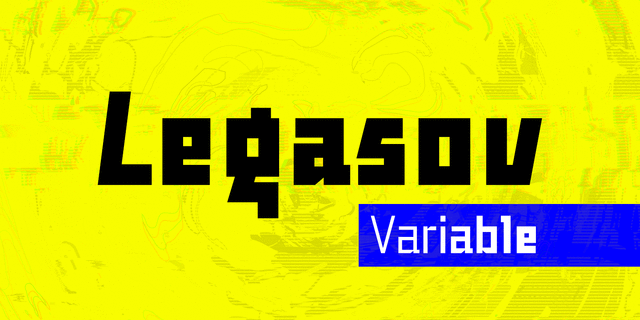
Legasov is an original font family designed for logos, titles, book covers, and branding identity. You can also use it for small text fragments. This is a modern geometric grotesque inspired by the Ukrainian modernism of the last century. It has a dynamic shape of characters and an avant-garde nature. Designed by Kyrylo Tkachov and Serhii Makarenko in 2022.